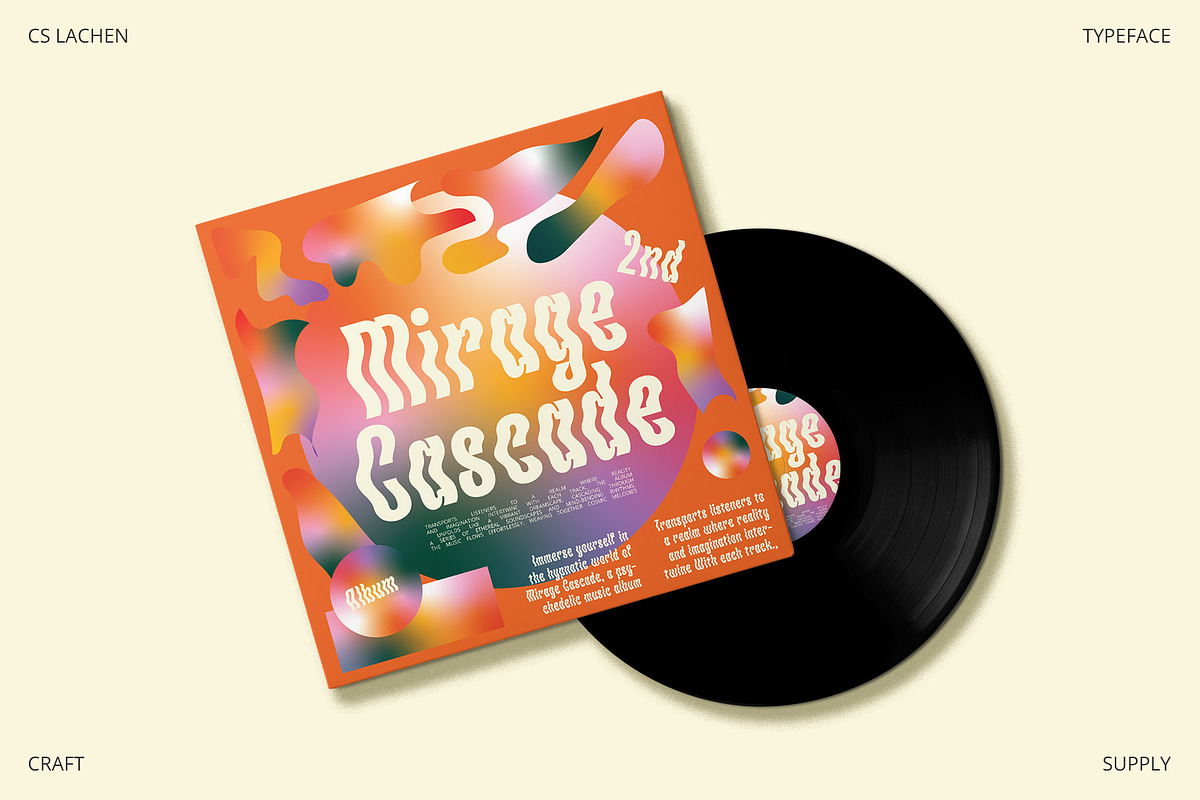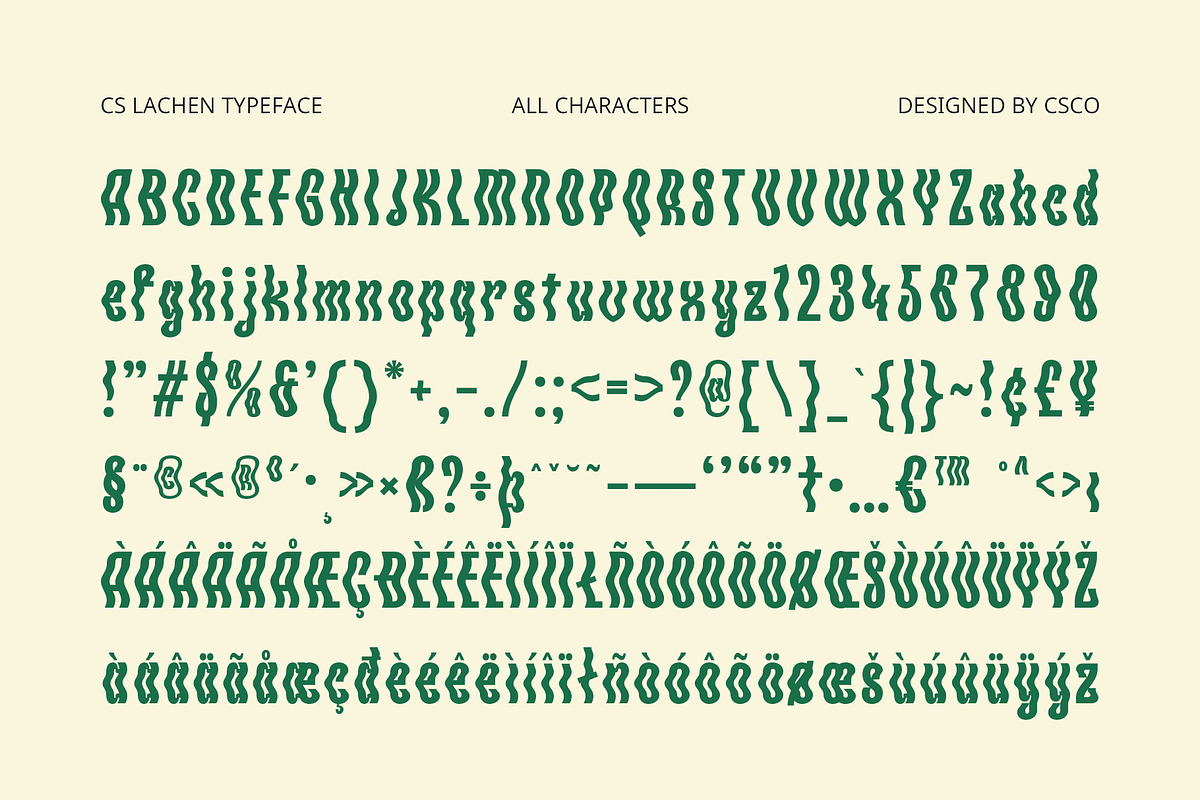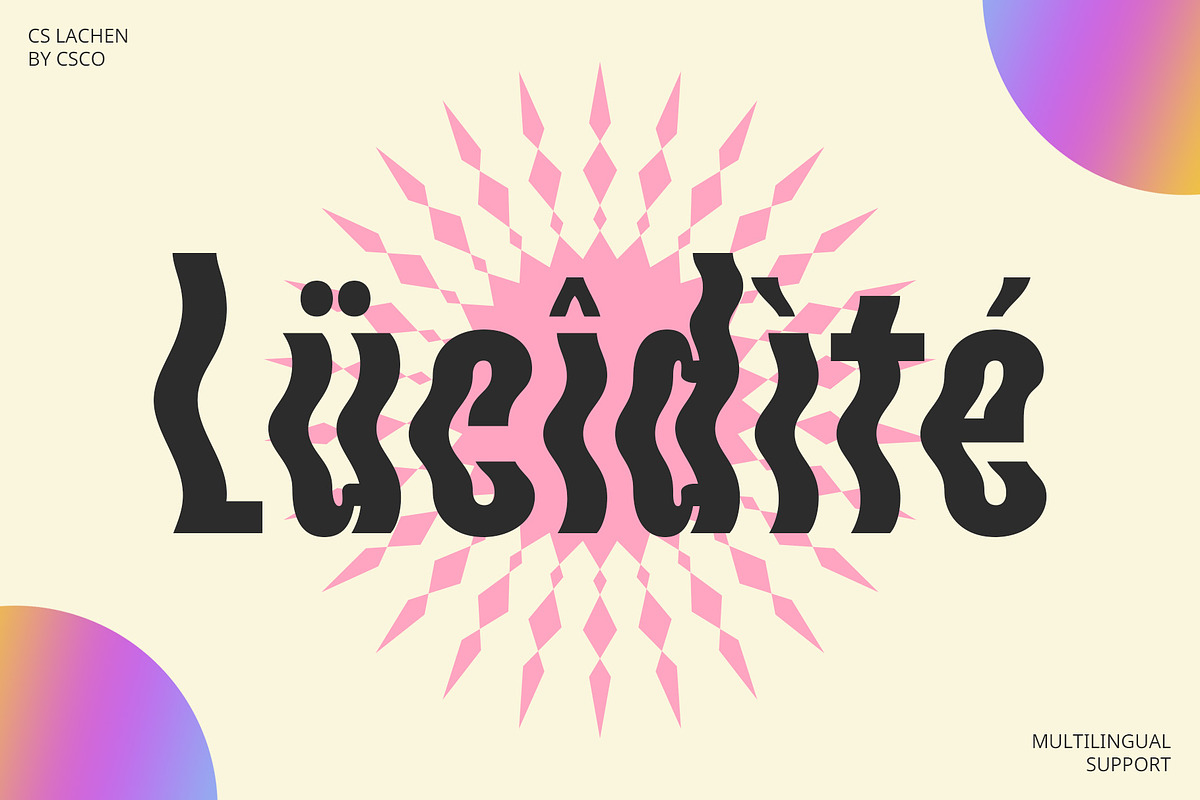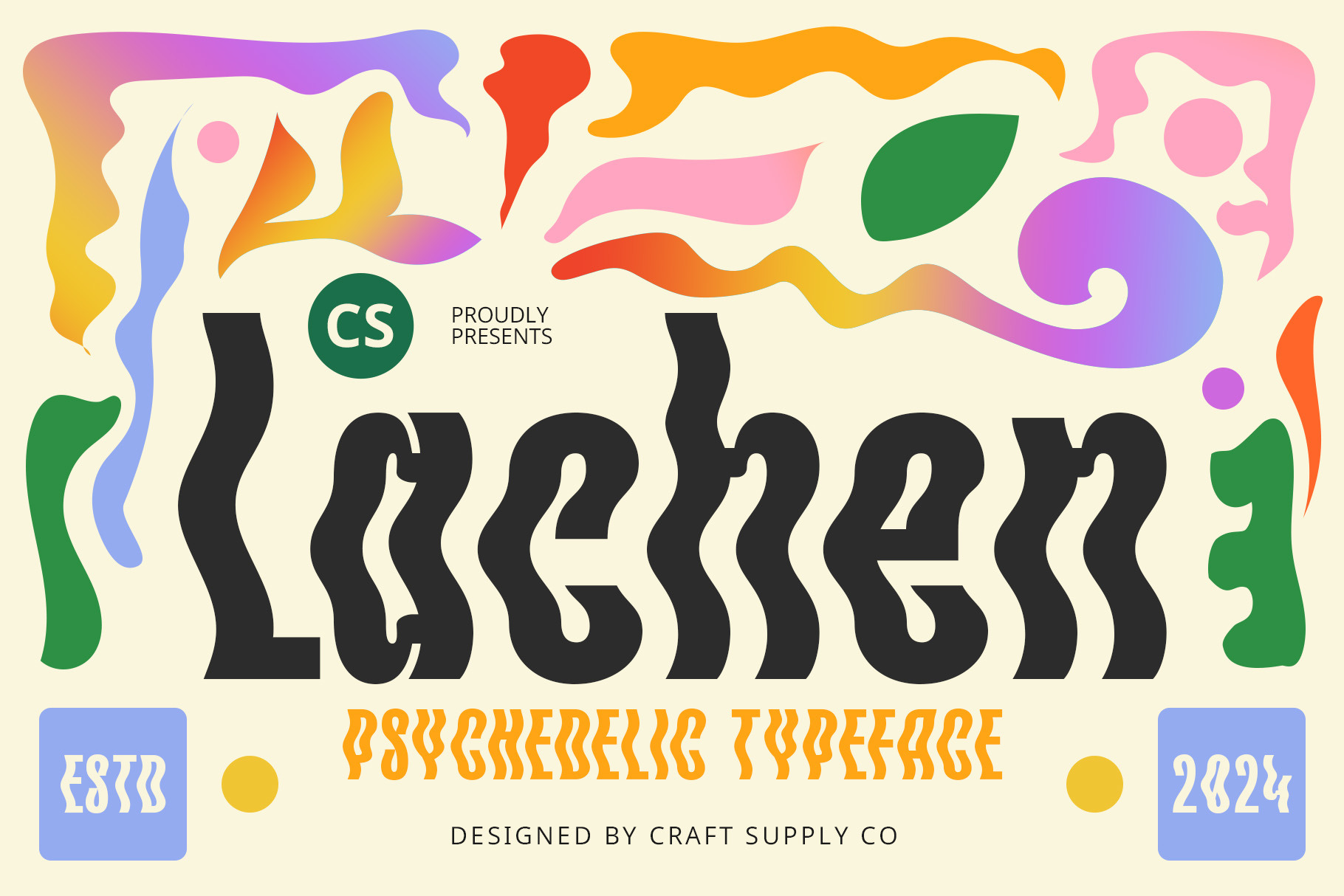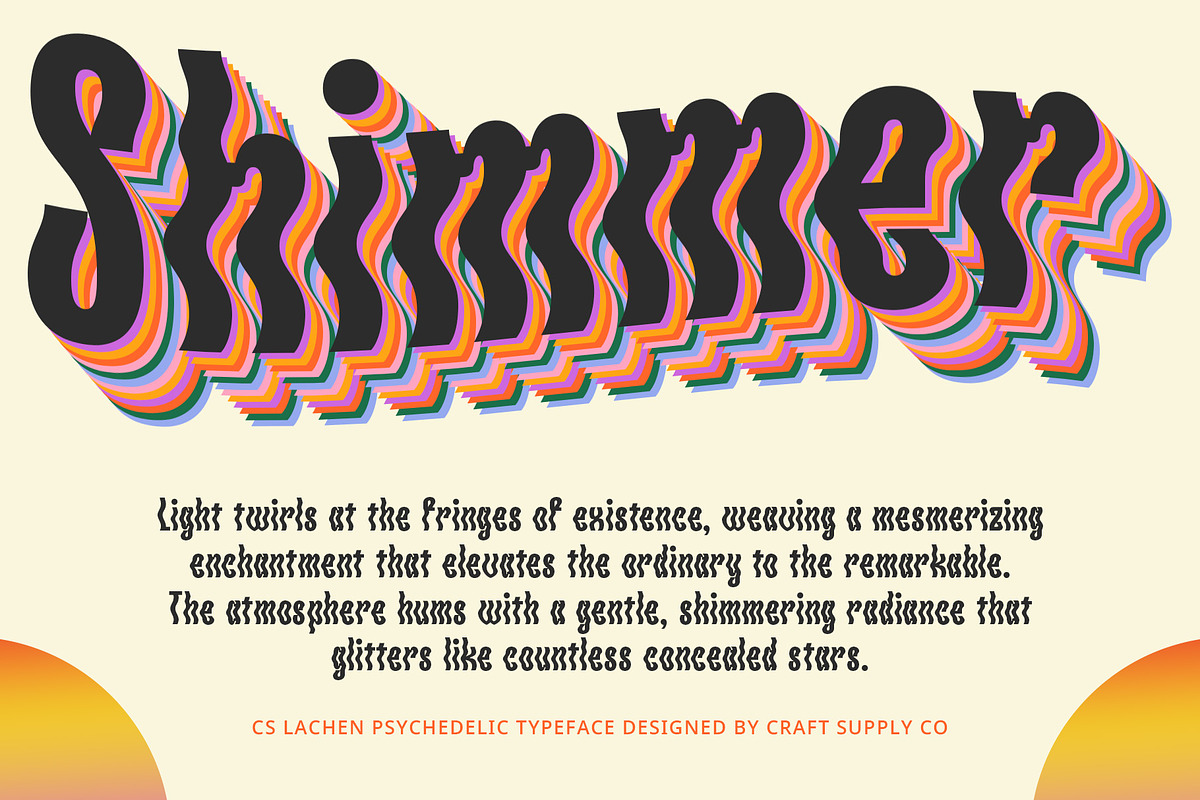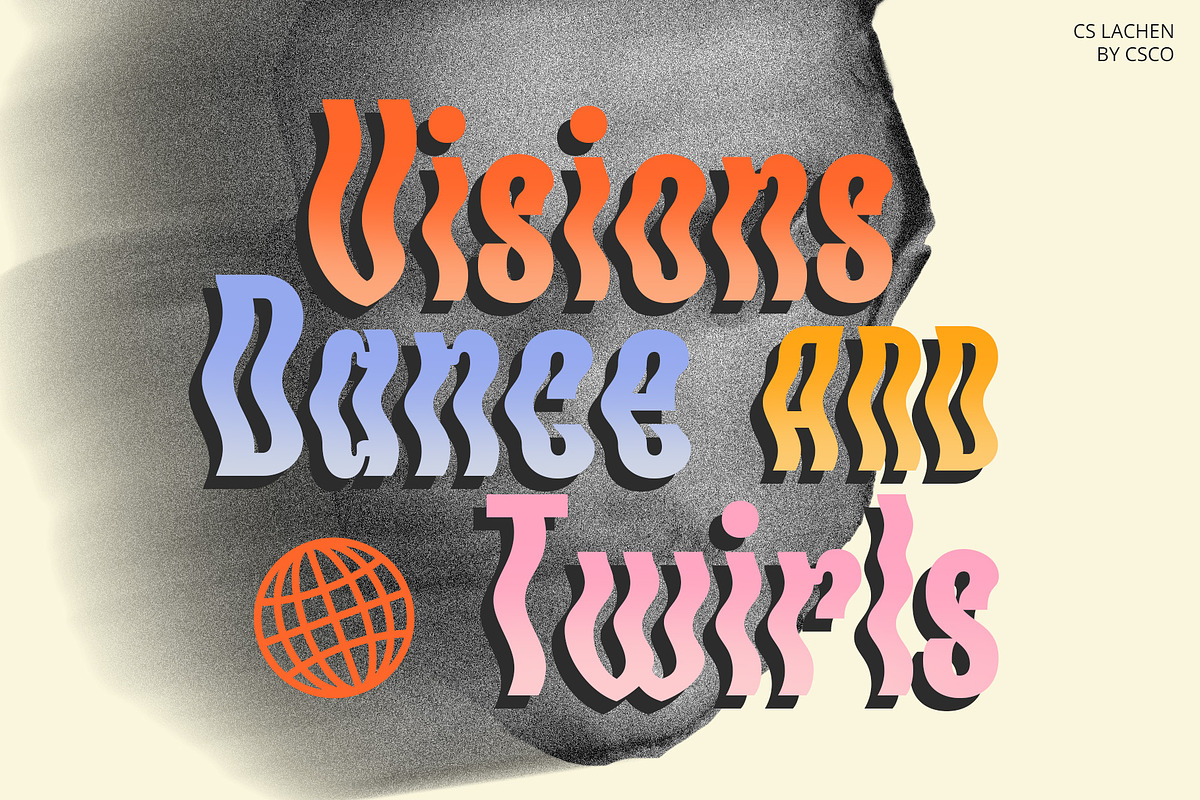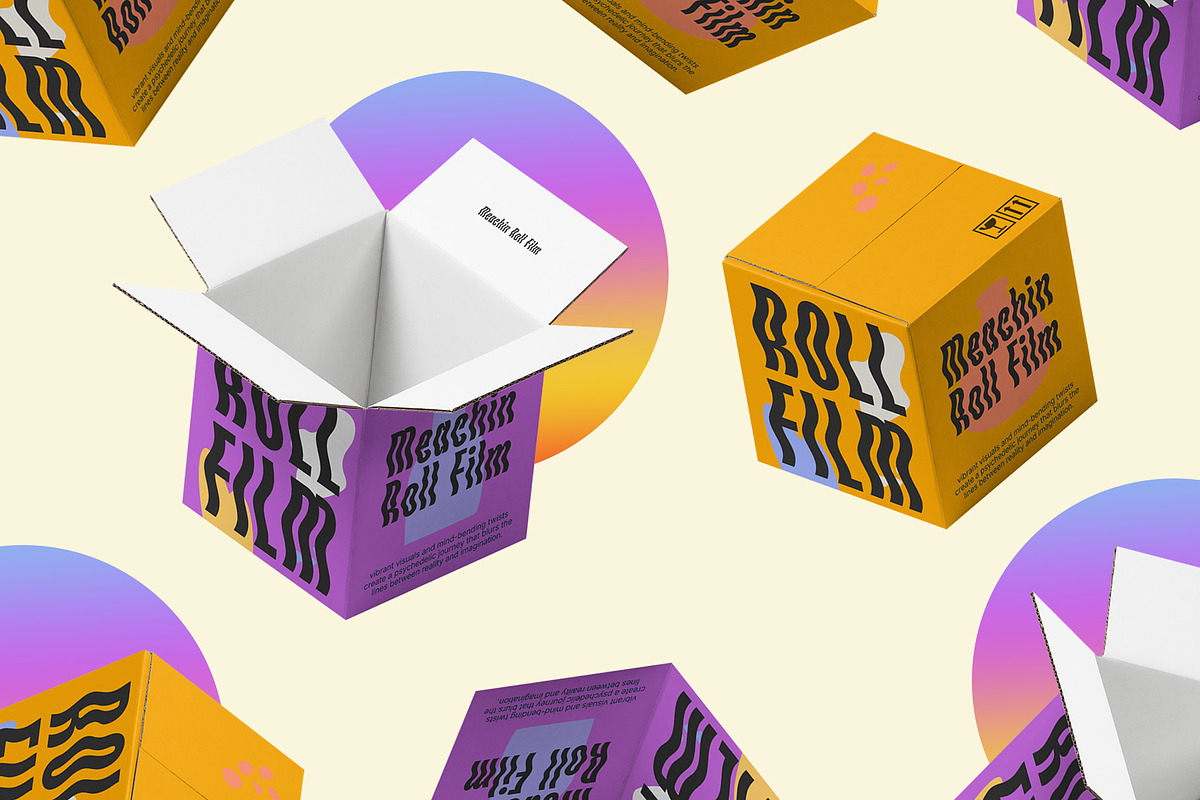
CS Lachen – Psychedelic Font
CS Lachen – Psychedelic Font: Vibrant and Eccentric Artistic Flair
Psychedelic Display Font with a Funky Design CS Lachen is a psychedelic display font designed to captivate with its bold and character-filled visuals. Combining unconventional and eccentric design elements, this font creates a striking effect that stands out with its unique, artistic style. Its curvy, wavy, and distorted forms add a touch of creativity and whimsy, embodying the essence of psychedelic art.
Unconventional Shapes and Artistic Style The font features a range of unconventional shapes and playful distortions, enhancing its visual impact and artistic flair. These distinctive elements are crafted to emphasize creativity and vibrancy, making CS Lachen a standout choice for projects that seek to evoke a sense of dynamic energy and originality.
Bright Colors and Bold Patterns CS Lachen’s design is often enhanced by bright colors and bold patterns, further amplifying its visual appeal. The energetic and lively atmosphere created by these elements makes the font ideal for capturing attention and adding a vibrant touch to any design. It’s perfect for use in music posters, creative events, and graphic projects that aim to showcase a unique and spirited character.
Perfect for Attention-Grabbing Designs Whether you’re working on promotional materials, event graphics, or any project requiring standout text, CS Lachen delivers with its eye-catching and imaginative design.
- CS Lachen Regular
- CS Lachen Italic
- CS Lachen Reverse Italic